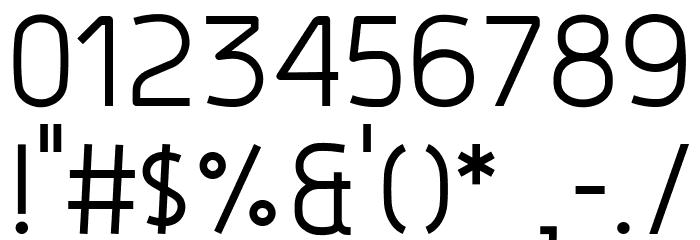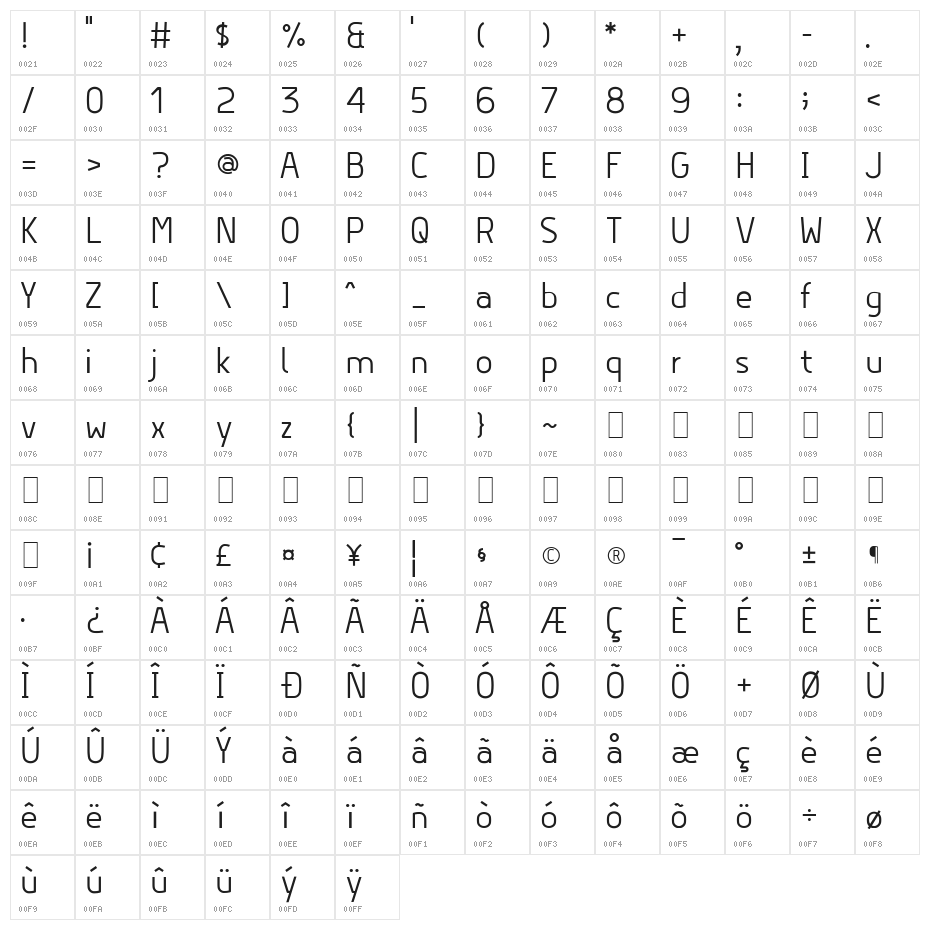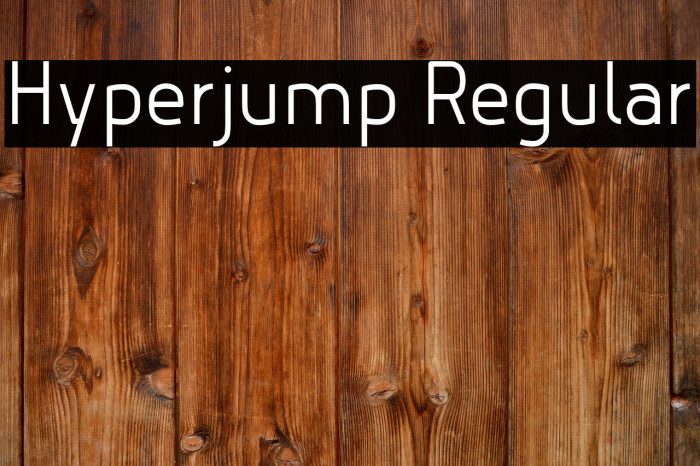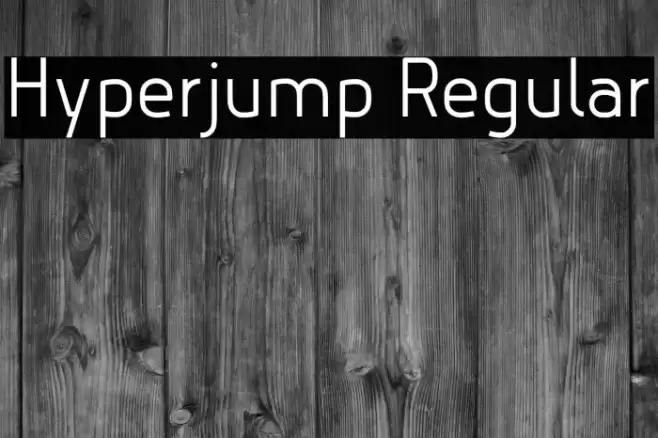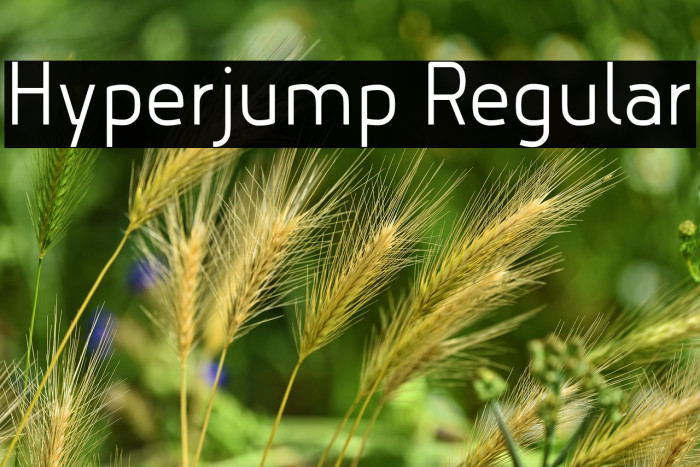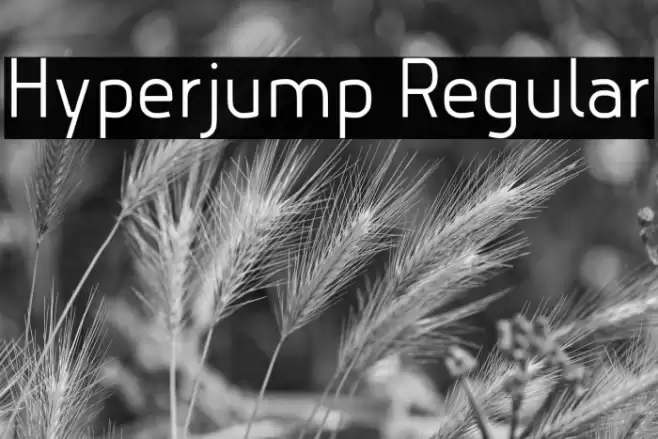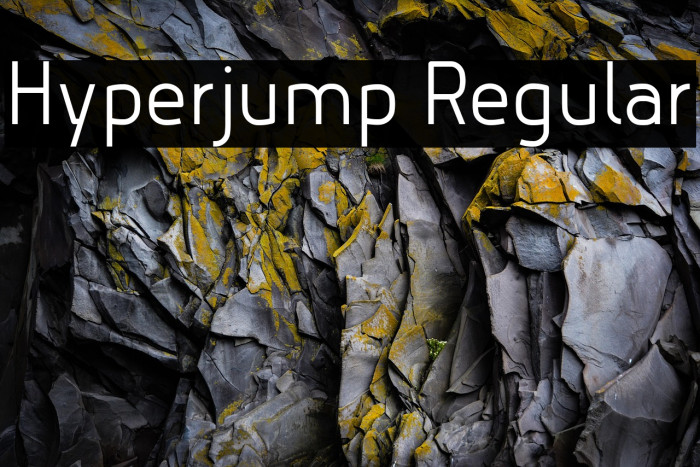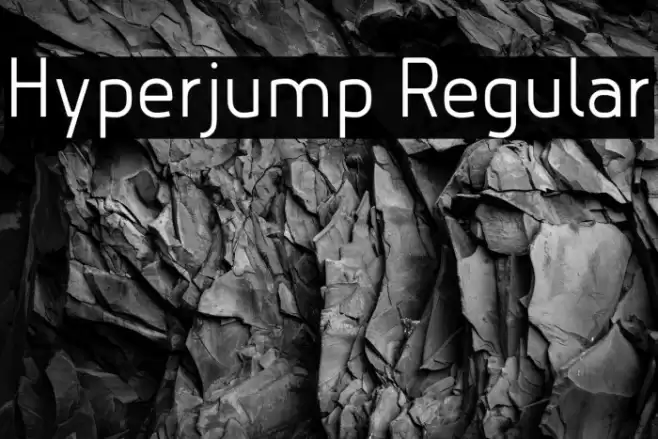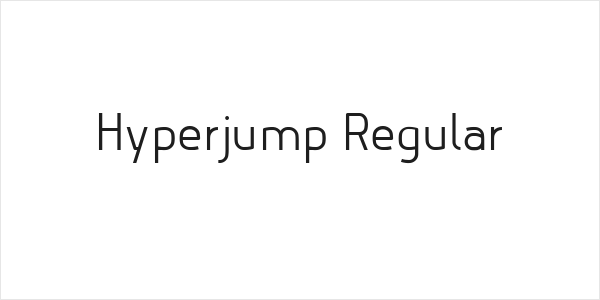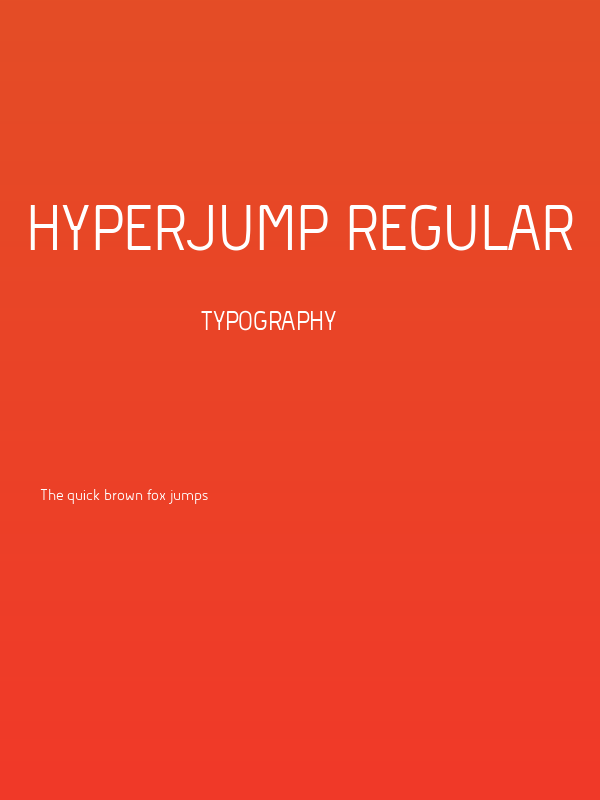
Hyperjump Regular Font
Hyperjump Regular Description
This font features a clean and modern sans-serif style with a geometric structure. The characters are uniform in width, providing a balanced and harmonious appearance. The uppercase letters are slightly taller than the lowercase, maintaining a consistent line weight throughout. The numerals are clear and easy to read, making them suitable for various applications. Special characters are well-defined, adding versatility to the font. The overall design is minimalistic, focusing on readability and simplicity, which makes it ideal for digital and print media.
| Proposed Projects | Ideal for digital interfaces, branding, advertising, and editorial design. |